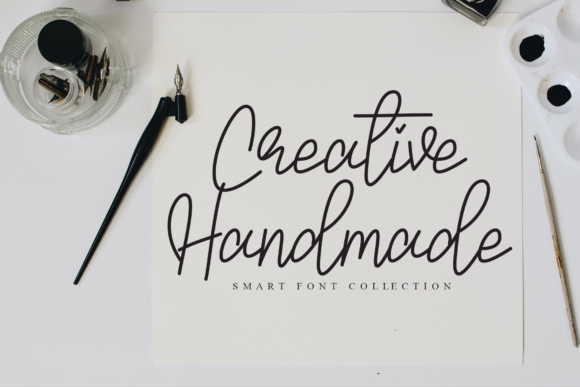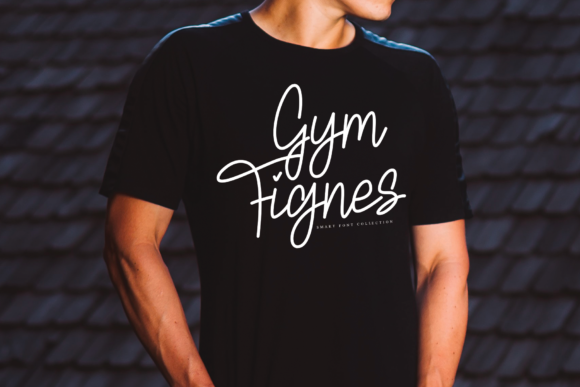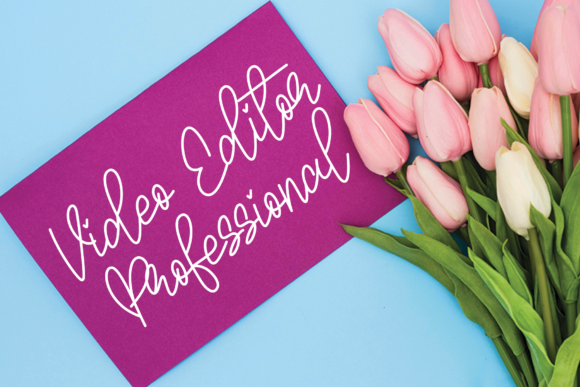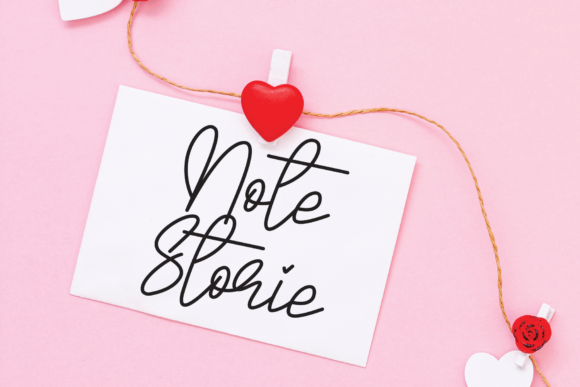
Fabulous Font: Elevate Your Designs with a Thin Handwritten Style
Are you on the hunt for a font that exudes elegance, sophistication, and a touch of whimsy? Look no further than Fabulous, a thin handwritten font that’s taking the design world by storm. With its smooth curves, delicate lines, and stylish flair, Fabulous is the perfect addition to any fashion branding or editorial design project.
The Characteristics of Fabulous Font
Fabulous is a carefully crafted font that boasts a range of characteristics that make it truly unique. Here are just a few of the features that set it apart:
- Thin and delicate: Fabulous is a thin handwritten font that’s perfect for designs where you want to convey a sense of elegance and refinement.
- Smooth curves: The font features smooth, flowing curves that give it a sense of organic, hand-crafted charm.
- Readable: Despite its delicate nature, Fabulous is remarkably readable, making it perfect for use in body text, headings, and titles.
- Stylish: Fabulous has a certain je ne sais quoi that adds a touch of style and sophistication to any design.
Perfect for Fashion Branding and Editorial Designs
Fabulous is a font that’s specifically well-suited to fashion branding and editorial designs. Here are just a few examples of how you can use it to elevate your projects:
- Fashion logos: Use Fabulous to create a logo that’s both elegant and eye-catching.
- Magazine and newspaper headlines: Add a touch of style and sophistication to your headlines with Fabulous.
- Editorial spreads: Use Fabulous to add a touch of elegance to your editorial spreads, whether you’re designing for print or digital.
- Product packaging: Fabulous is a great choice for product packaging, particularly for luxury or high-end brands.
Why You Should Add Fabulous to Your Font Collection
So why should you add Fabulous to your font collection? Here are just a few compelling reasons:
- Versatility: Fabulous is a versatile font that can be used in a wide range of design projects.
- Elegance: Fabulous adds a touch of elegance and sophistication to any design.
- Readability: The font is remarkably readable, making it perfect for use in body text and headings.
- Uniqueness: Fabulous has a unique, hand-crafted charm that sets it apart from more generic fonts.
Tips for Using Fabulous Font
Here are a few tips for getting the most out of Fabulous:
- Use it sparingly: Fabulous is a font that’s best used sparingly, particularly in larger sizes.
- Experiment with colors: Fabulous looks great in a range of colors, from bold and bright to soft and pastel.
- Pair it with other fonts: Fabulous pairs well with a range of other fonts, including sans-serif and serif fonts.
- Pay attention to spacing: Make sure to pay attention to spacing when using Fabulous, particularly in body text.
In conclusion, Fabulous is a font that’s sure to elevate your designs and add a touch of elegance and sophistication. With its smooth curves, delicate lines, and stylish flair, it’s the perfect choice for fashion branding, editorial designs, and a wide range of other projects. So why not add it to your font collection today and see the difference it can make?